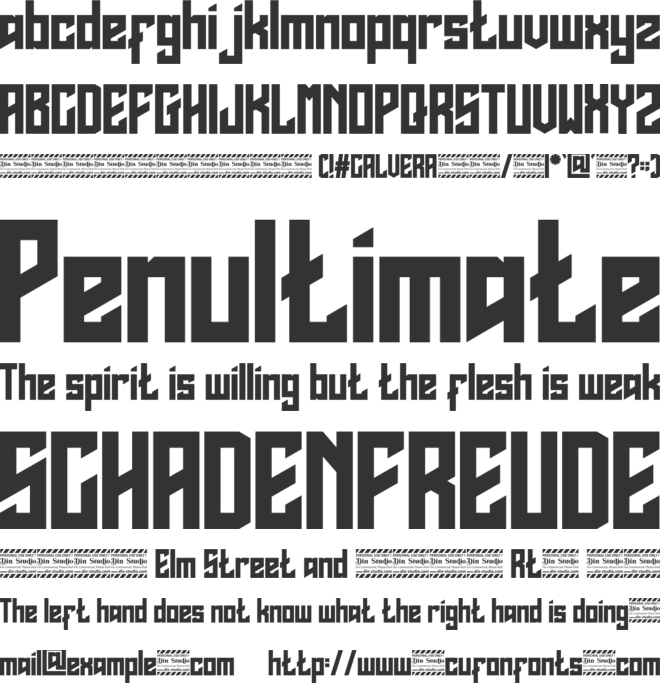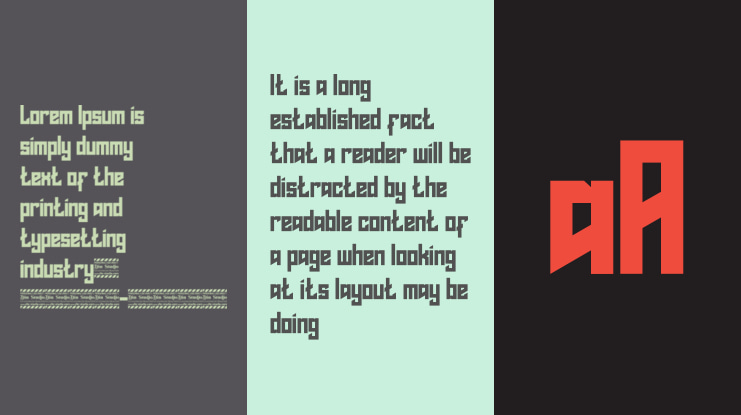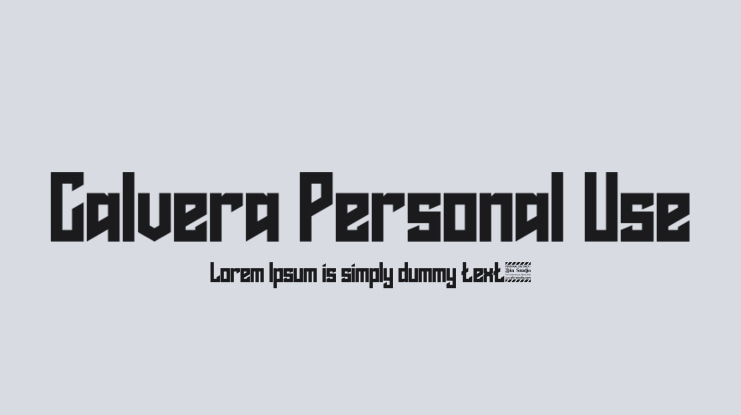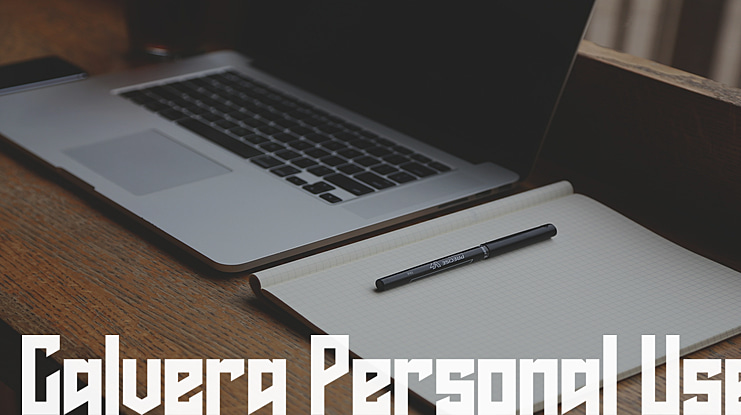
Calvera is a modern display font. Made for any professional project branding. It is the best for logos,branding and quotes. Every letter has a unique and beautiful touch.